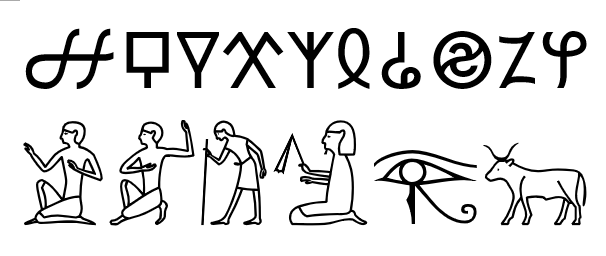
Segoe UI Historic is a font that supports a variety of historic languages, scripts and writing systems. These scripts are not in general everyday use, but are of interest to students, teachers, academics and other historic script enthusiasts. The style of glyphs included in the font generally aligns with the Segoe UI design, and on Windows this font serves as a fallback font for these languages, scripts and writing systems. The font contains original, licensed and open source components.